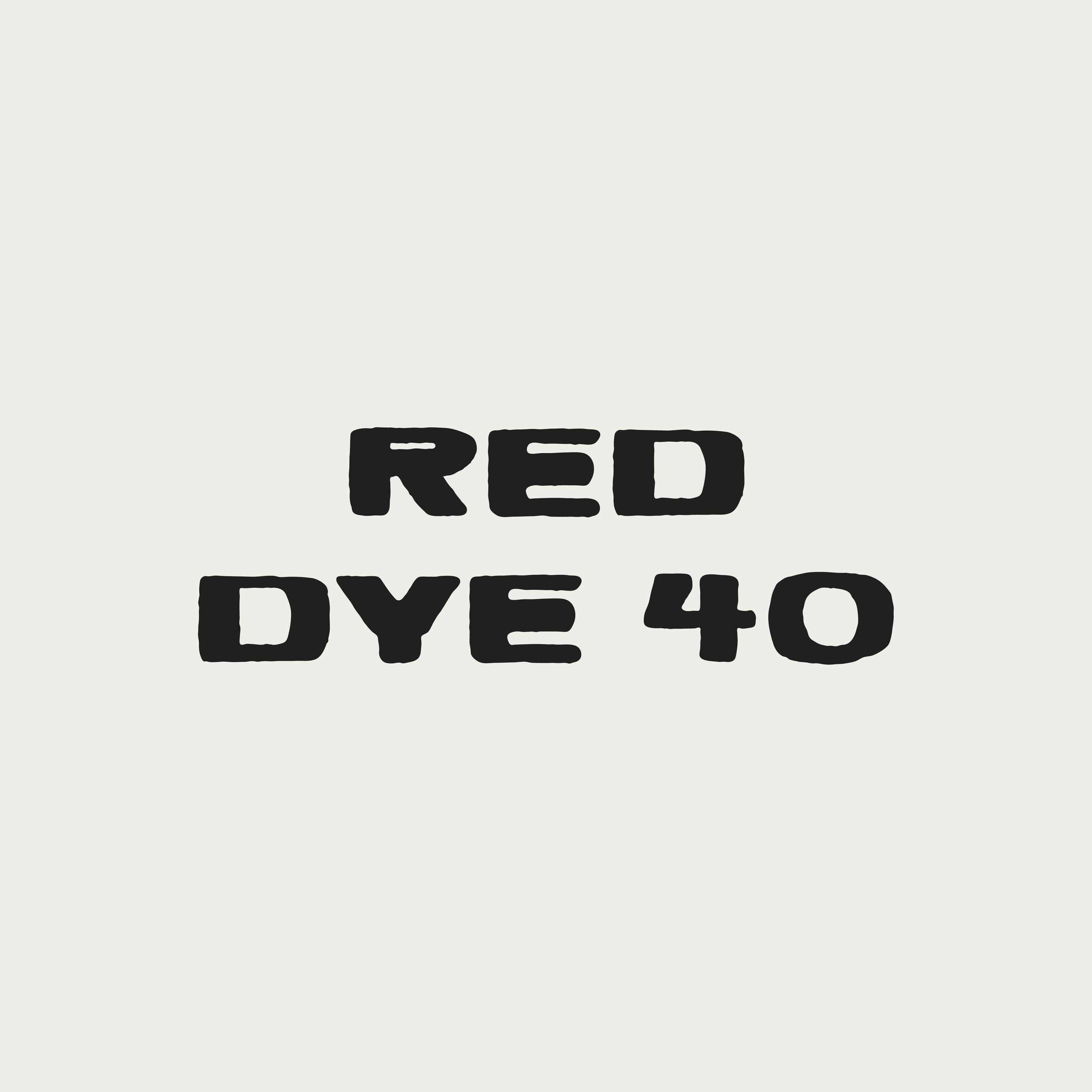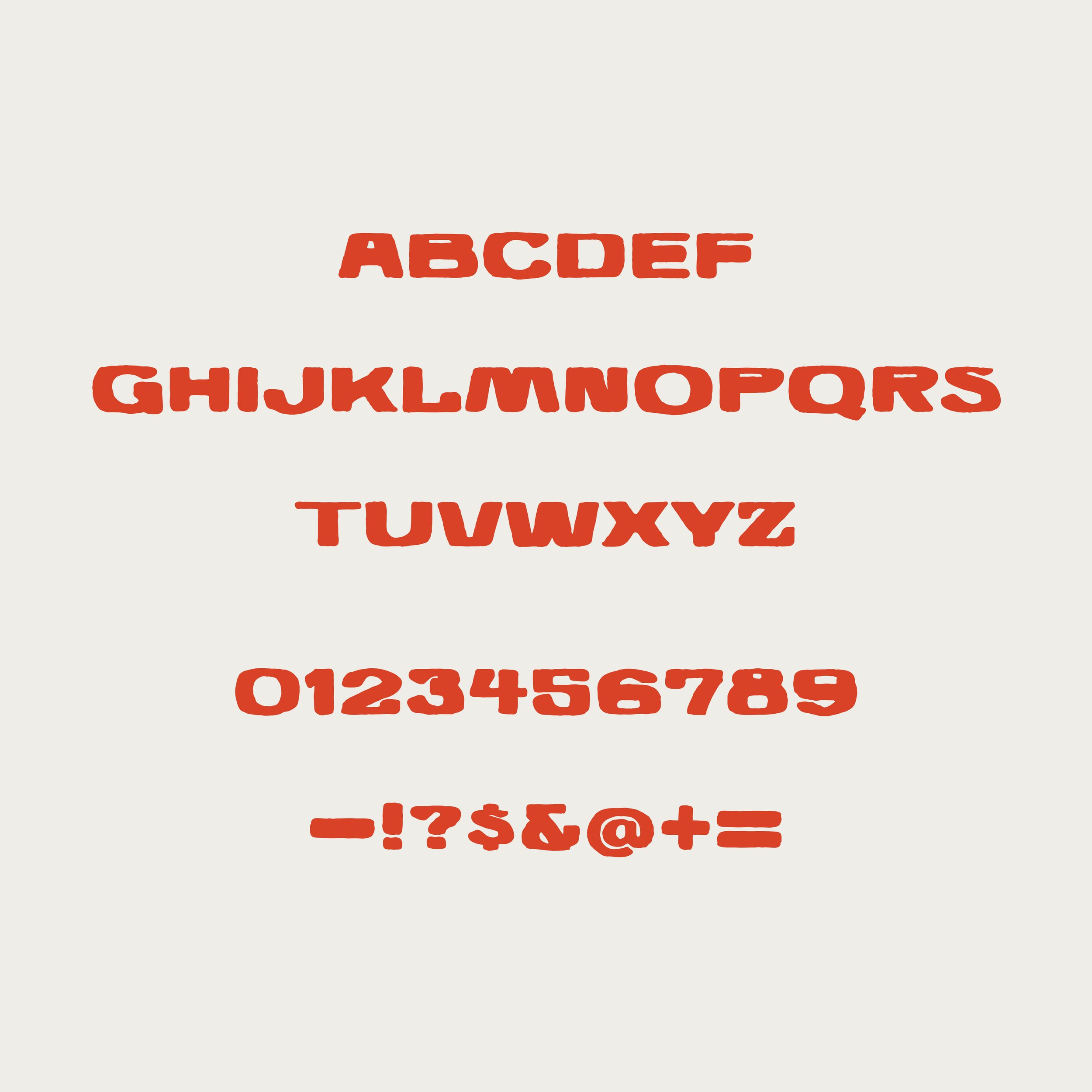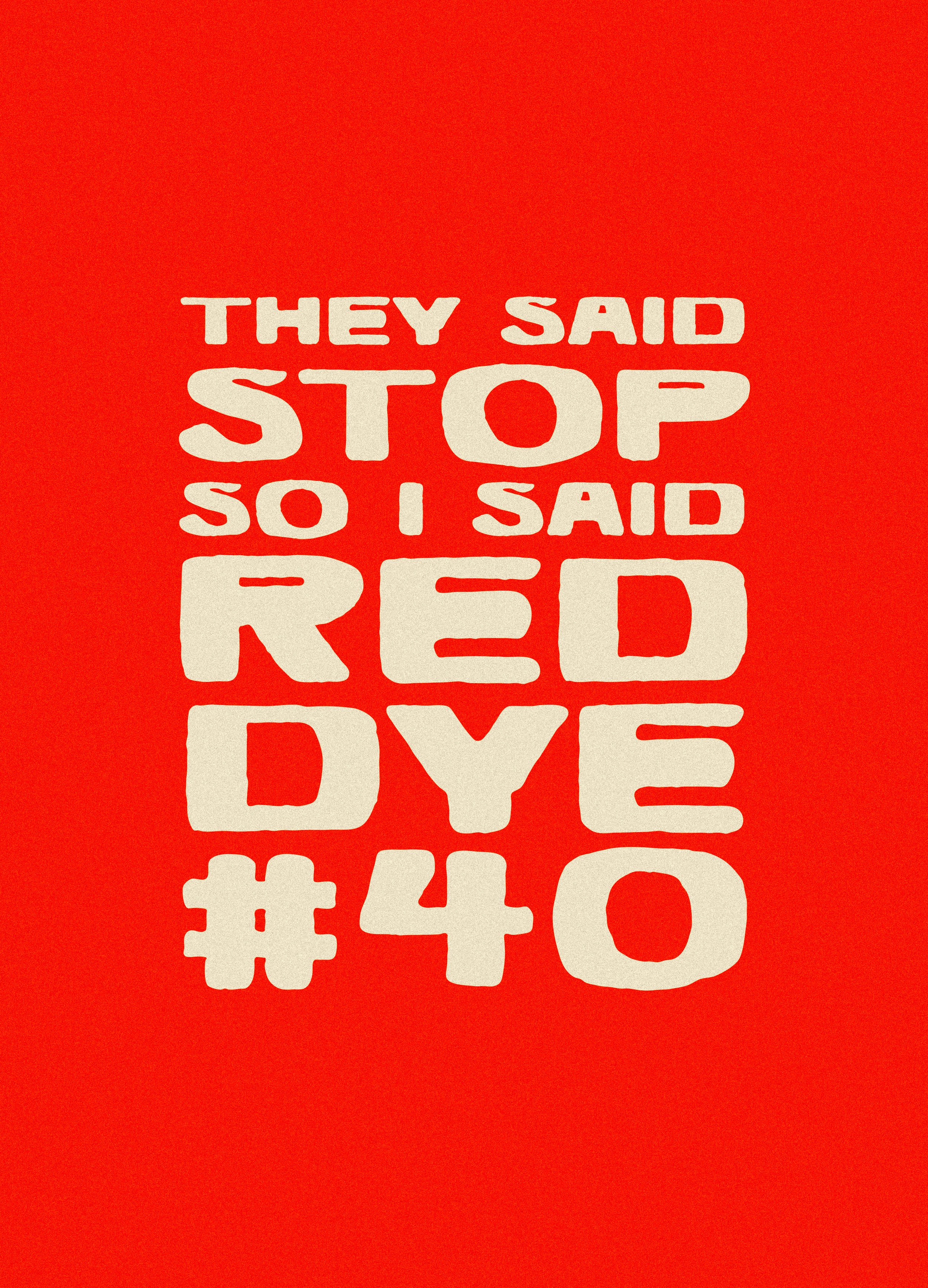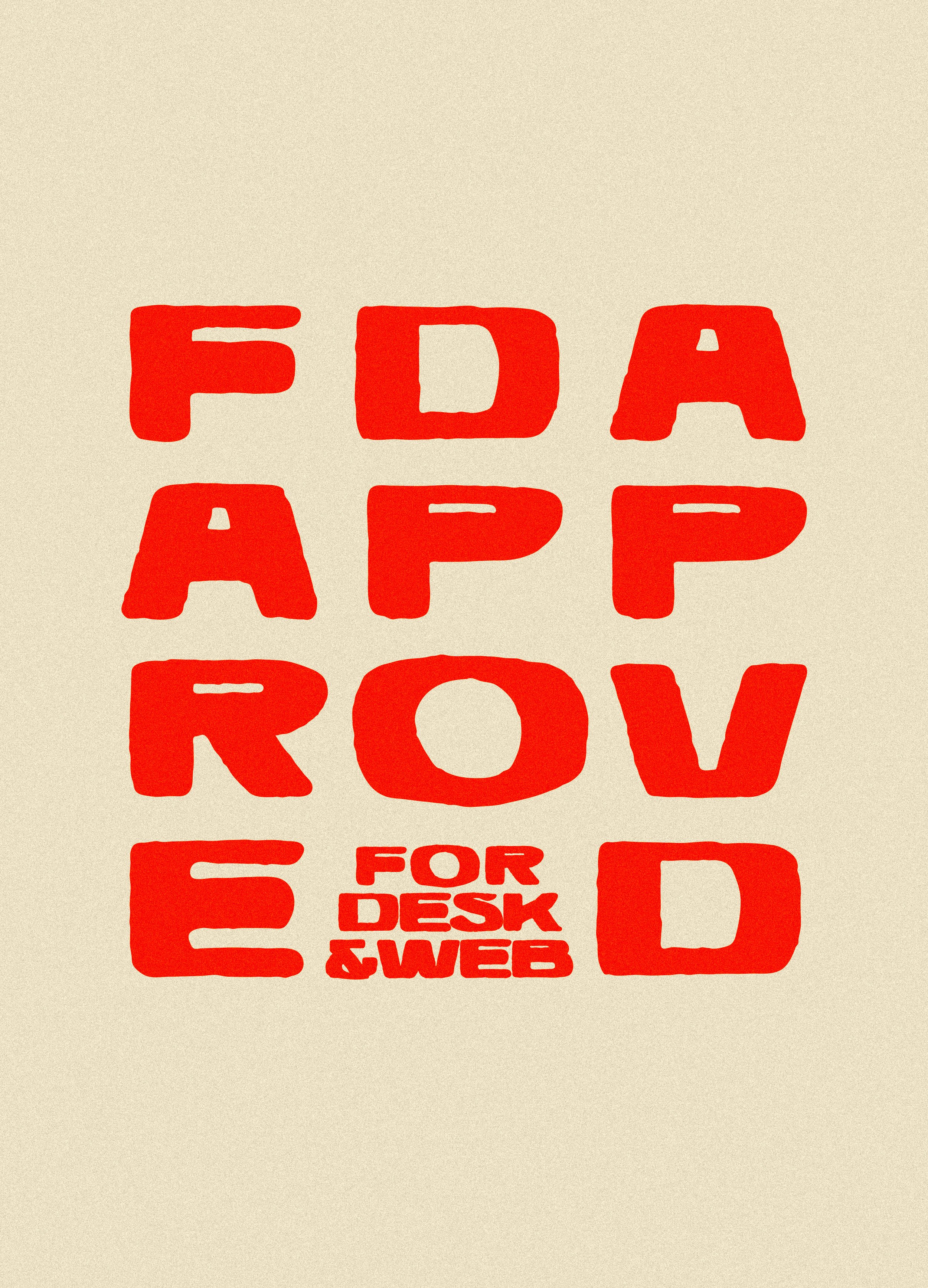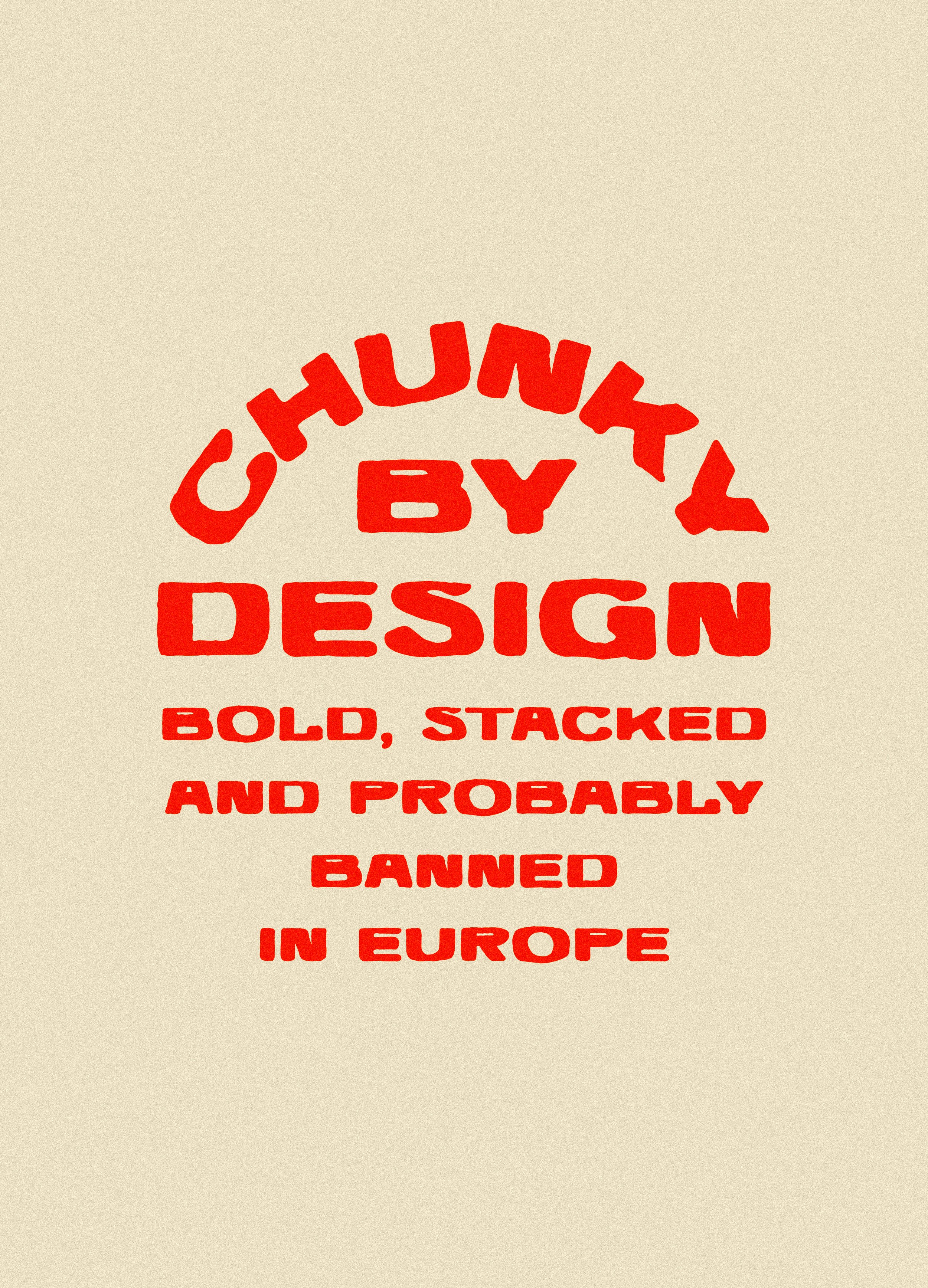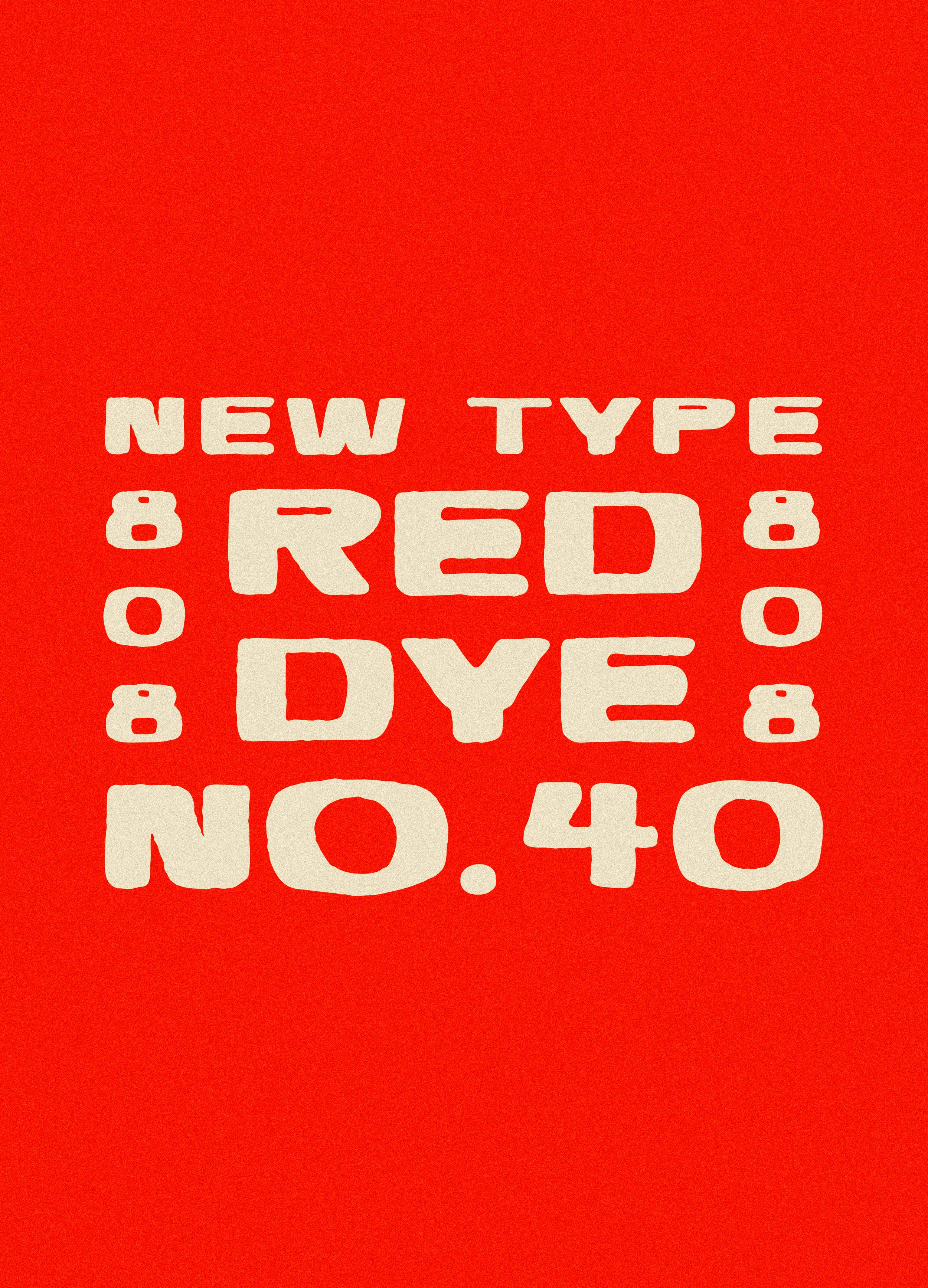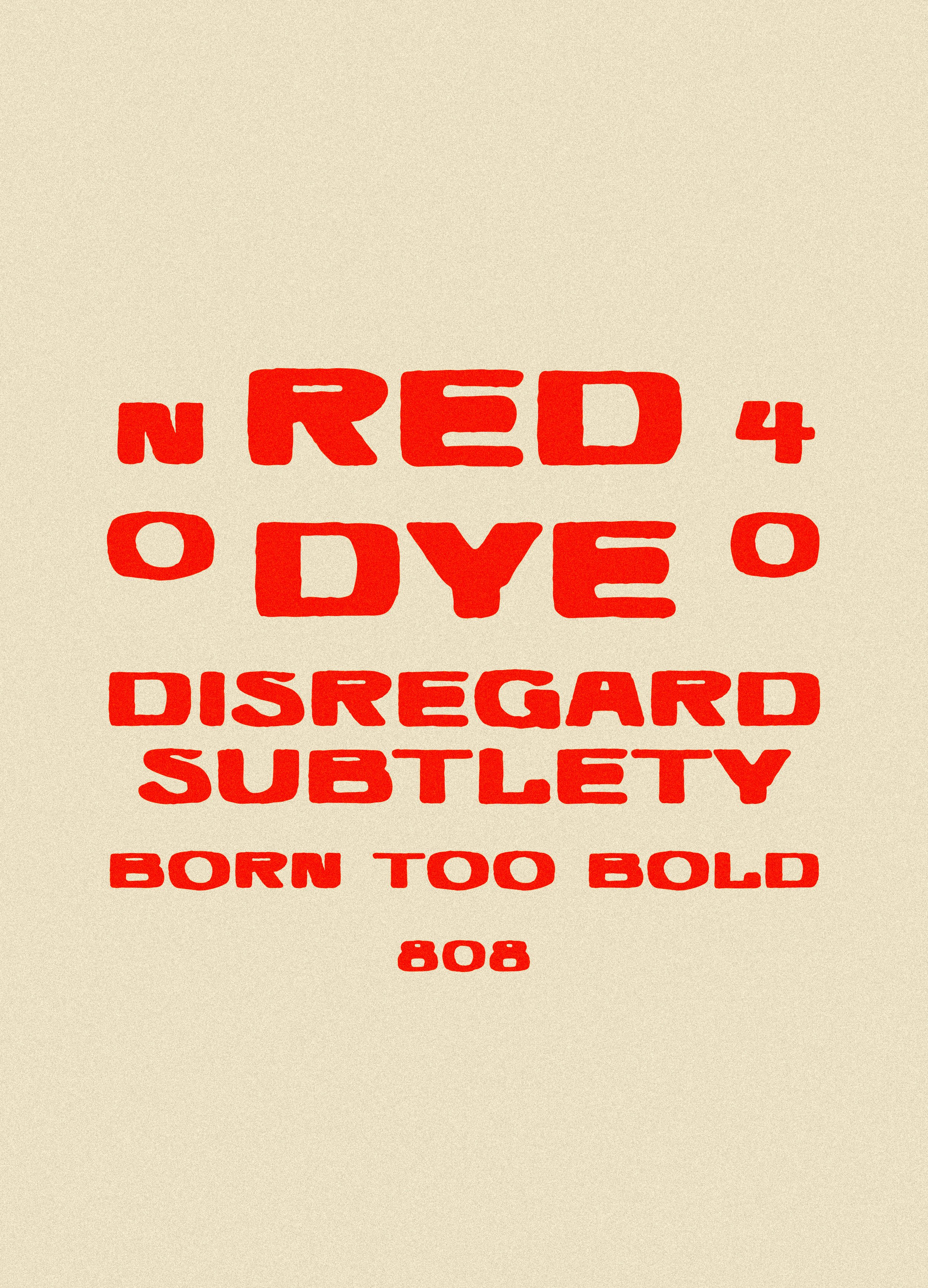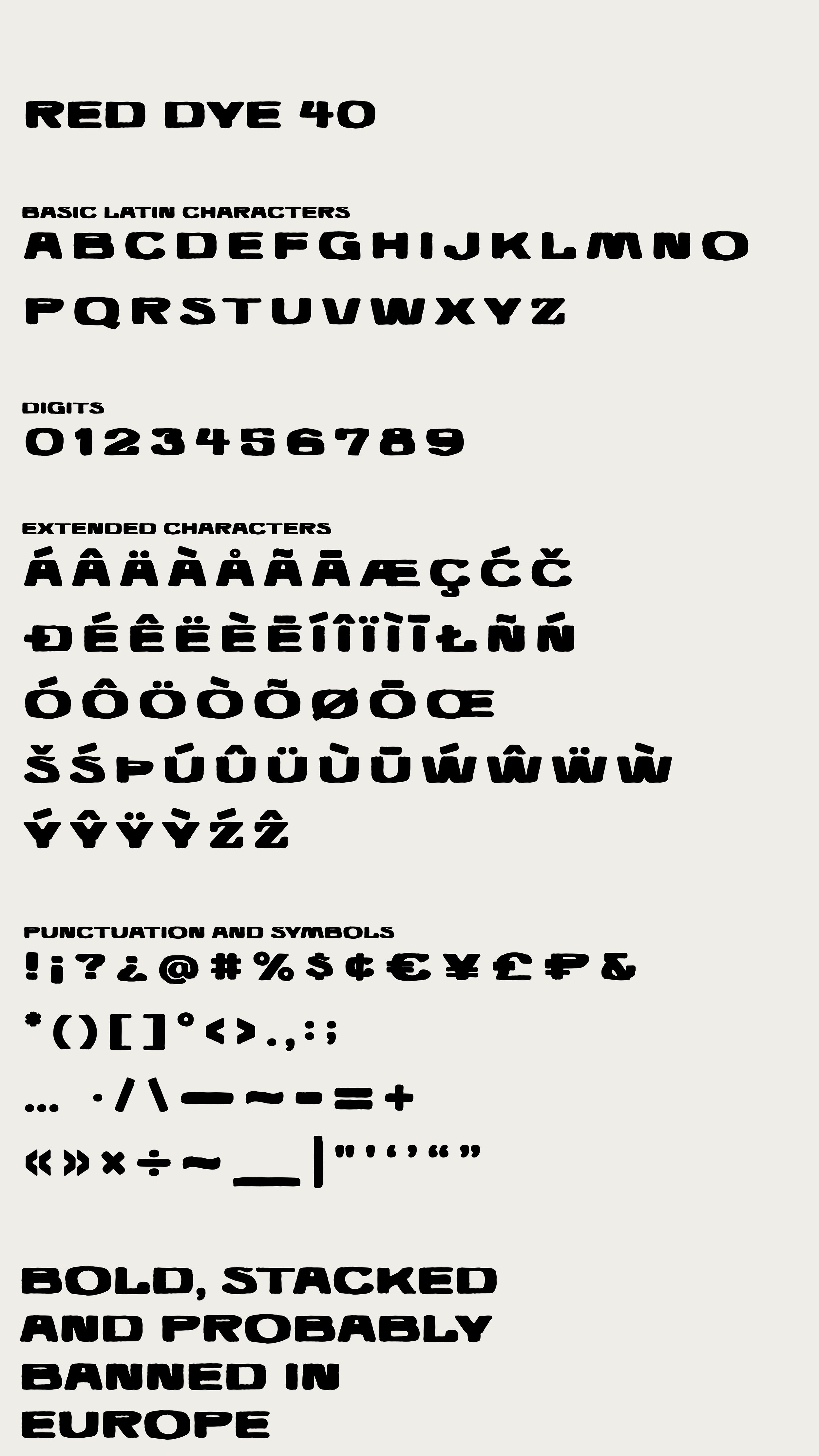
Red Dye No. 40
I know — Taylor named this new font Red Dye No. 40? You gotta understand I’m trying to get on Googles good side here. It was either this or Diddy Trial Verdict — I figured I’d play it safe and stick with something we all know and love. This font is thick, imperfect, and too confident for its own good.
Red Dye 40: Character set shown below.
Uppercase letters and digits
Full punctuation
Support for over 69 languages.
Language Support: Extensive support for all Western European languages, including Icelandic and Welsh. Please see the character sheet below to confirm support for your mother tongue.